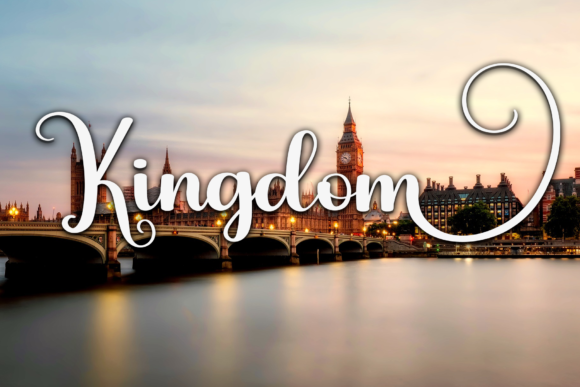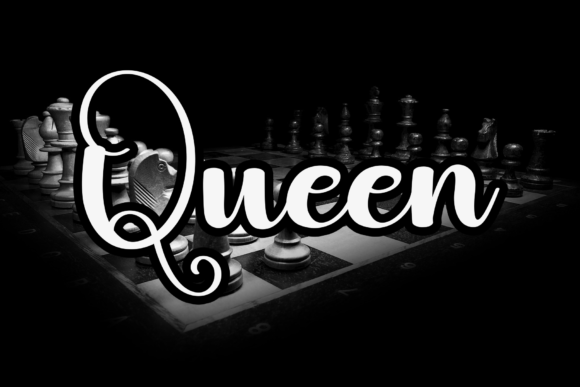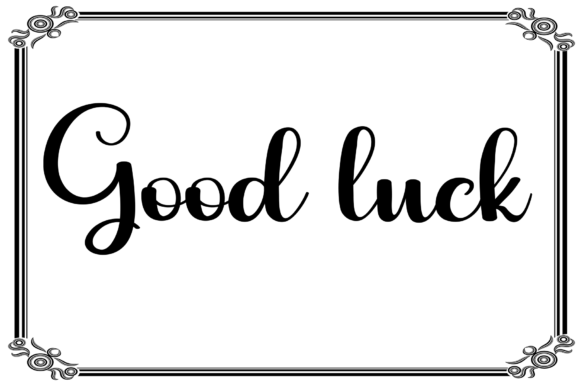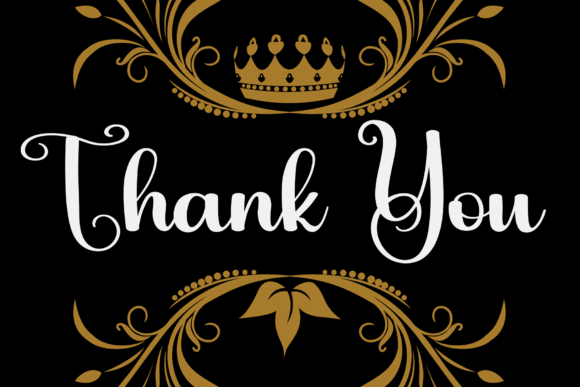
Crown Font: The Royal Treatment for Your Designs
Are you looking for a font that exudes elegance, sophistication, and romance? Look no further than the Crown Font, a beautiful script font that is sure to elevate your designs to the next level. With its stunning curves and PUA coding, this font is a must-have for designers and crafters alike.
A Sweet and Romantic Font
The Crown Font is a sweet and romantic script font that features beautiful curves in each letter. Its flowing lines and delicate strokes make it perfect for designs that require a touch of elegance and sophistication. Whether you’re creating wedding invitations, greeting cards, or social media graphics, this font is sure to add a touch of whimsy and charm.
One of the best things about the Crown Font is that it’s PUA (Private Use Area) coded, which means you can access all the glyphs and sweeps easily. This makes it simple to customize your designs and add your own personal touch. With PUA coding, you can access a wide range of alternative characters, ligatures, and swashes, giving you endless possibilities for creative expression.
The Crown Font is a versatile font that is perfect for both designers and crafters. Whether you’re creating professional designs for clients or working on personal projects, this font is sure to inspire. Its elegant curves and romantic feel make it perfect for a wide range of projects, from wedding designs to branding and packaging.
Key Features of the Crown Font
- Beautiful curves: Each letter features stunning curves that add a touch of elegance and sophistication to your designs.
- PUA coded: Access all glyphs and sweeps easily with PUA coding, giving you endless possibilities for creative expression.
- Sweet and romantic: This font is perfect for designs that require a touch of whimsy and charm, such as wedding invitations and greeting cards.
- Versatile: Use this font for a wide range of projects, from professional designs to personal crafting projects.
Tips for Using the Crown Font
Here are a few tips for getting the most out of the Crown Font:
- Experiment with different sizes: This font looks great in a variety of sizes, from large headings to smaller body text.
- Pair with other fonts: Try pairing the Crown Font with other fonts to create a unique and interesting look.
- Use it for headlines and titles: The Crown Font is perfect for headlines and titles, where its elegant curves can really shine.
The Crown Font is a beautiful and elegant script font that is sure to add a touch of sophistication and romance to your designs. With its stunning curves and PUA coding, this font is a must-have for designers and crafters alike. Whether you’re creating professional designs or working on personal projects, the Crown Font is the perfect choice for anyone looking to add a touch of elegance and whimsy to their work.